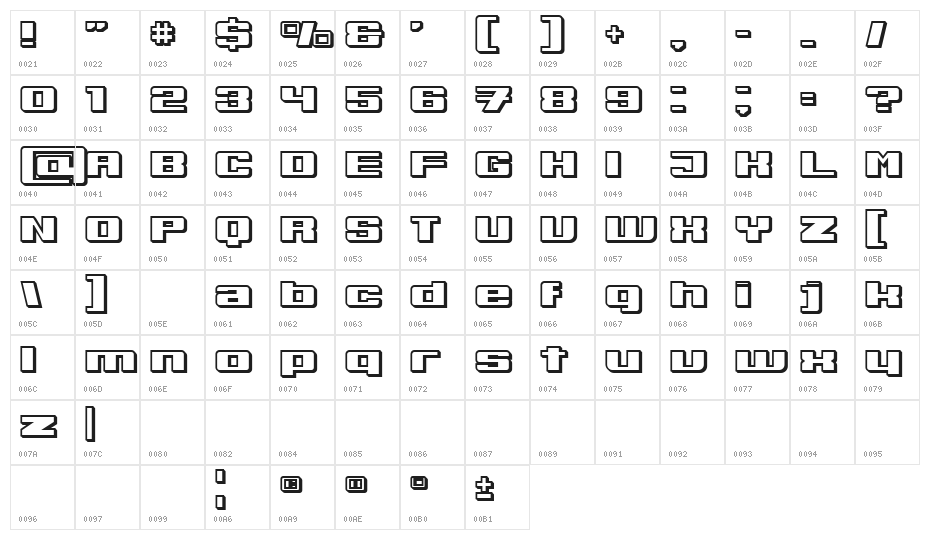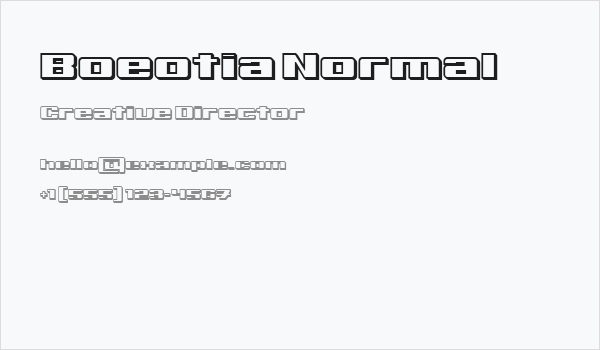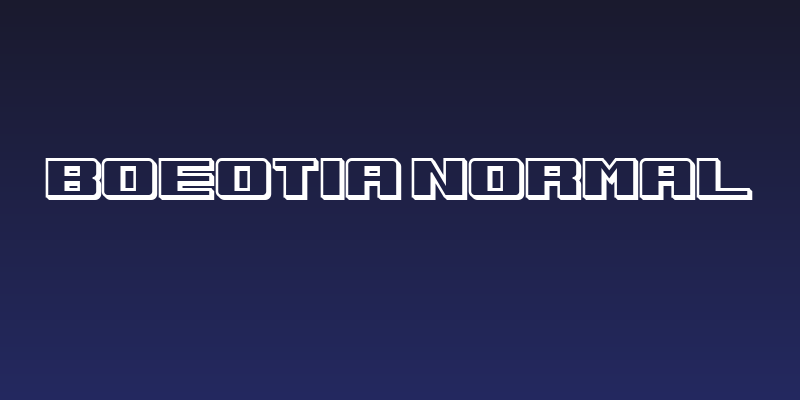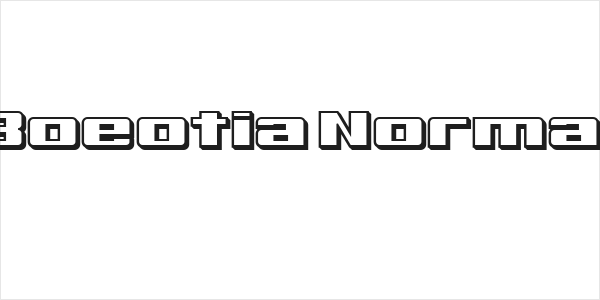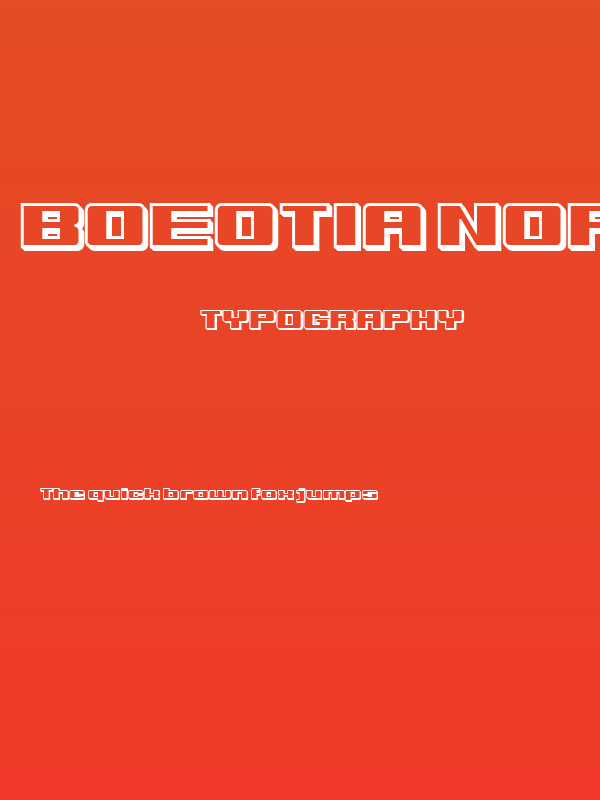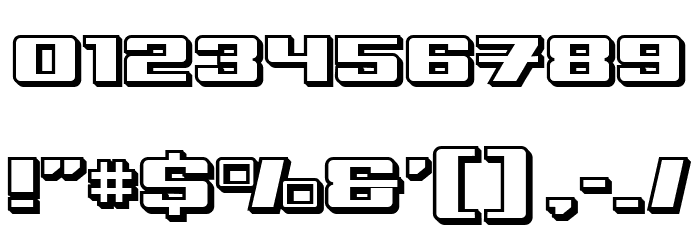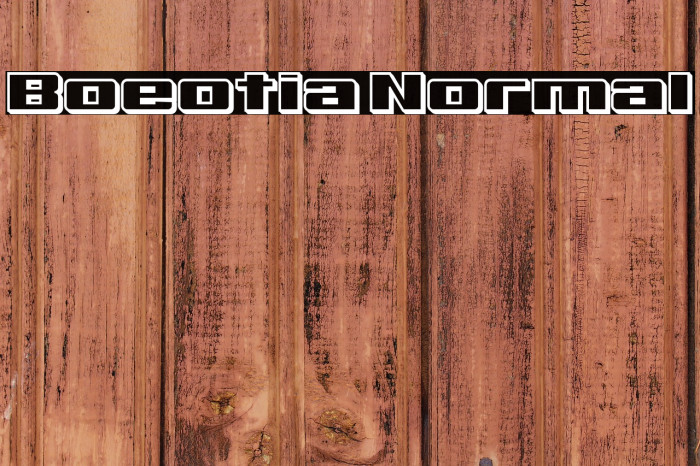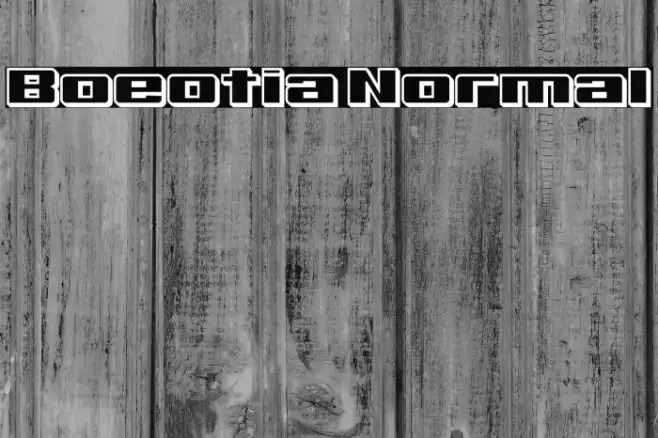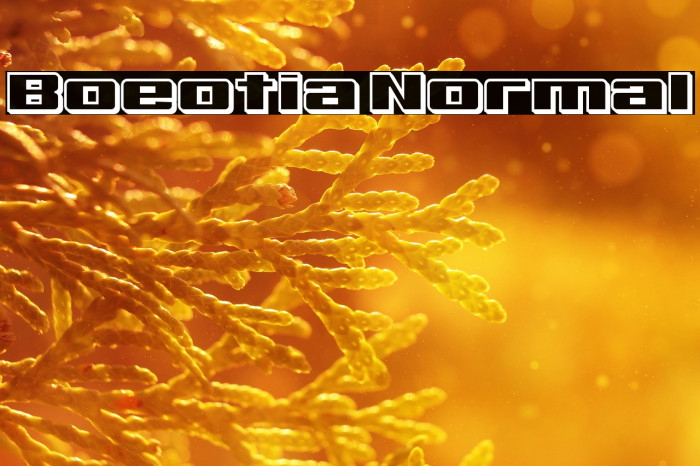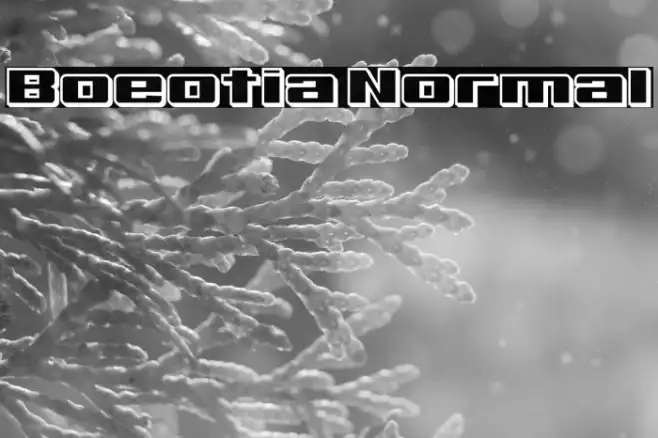
Boeotia Normal Font
Boeotia Normal Description
This font features a bold, geometric design with a strong presence. Each character is outlined, creating a striking contrast between the thick, solid interior and the thin, precise border. The uppercase and lowercase letters maintain a consistent style, with a blocky, angular appearance that suggests a modern, industrial aesthetic. The numerals and special characters follow the same design principles, ensuring uniformity across the entire typeface. The overall look is both futuristic and retro, making it versatile for various creative applications.
| Use Case | Logos, Posters, Headlines |
| Proposed Projects | Ideal for logos, posters, video game graphics, and any project requiring a bold, eye-catching typeface. |